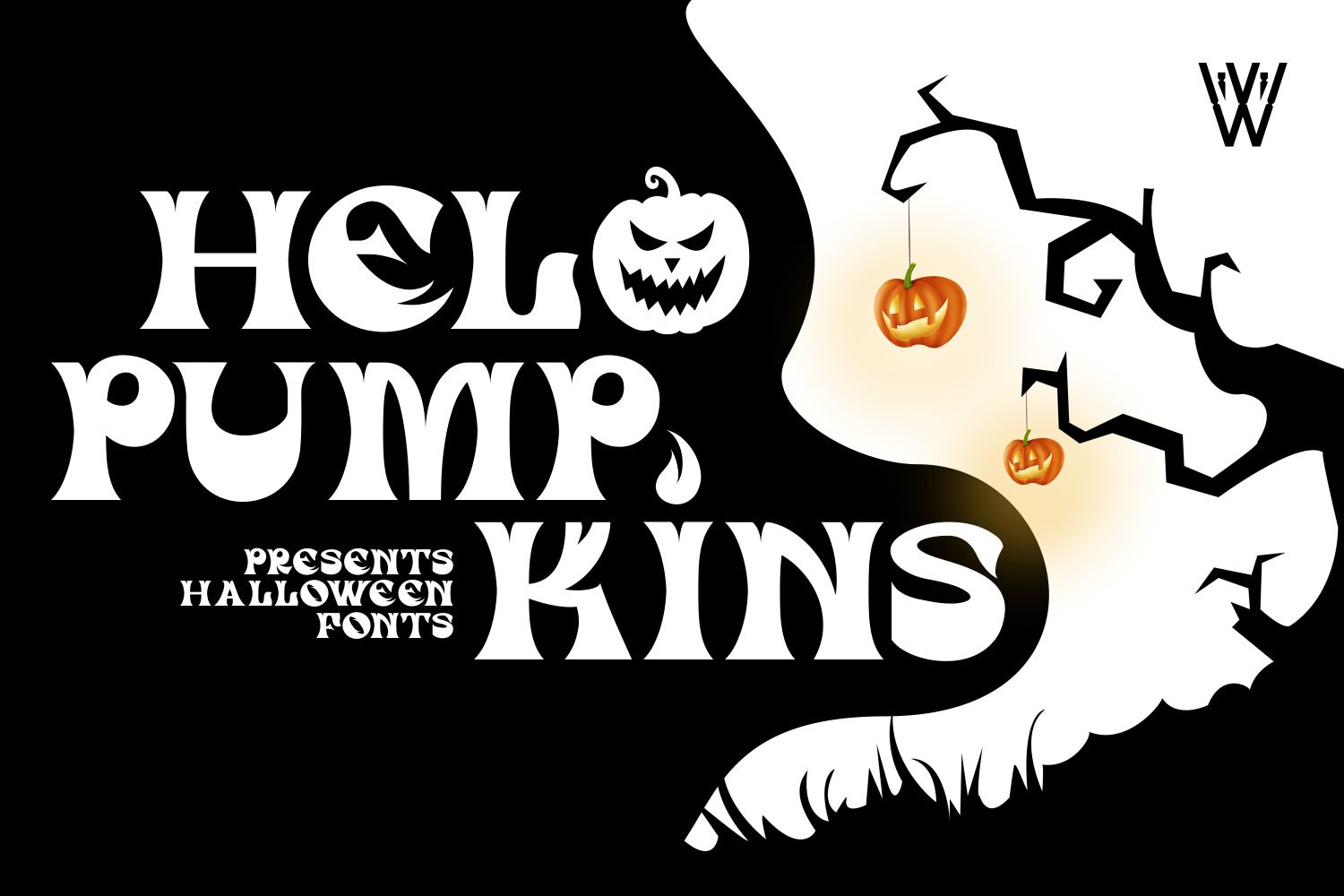
Helo Pumpkins | Halloween font
The Helo Pumpkins Font is a whimsical and spooky typeface that captures the playful spirit of Halloween with its quirky design and eerie charm. Inspired by jack-o’-lanterns and the festivities of the season, this font features fun and quirky letterforms with a touch of spookiness. Whether you’re designing Halloween party invitations, spooky posters, or playful branding materials, the Helo Pumpkins Font adds a delightful and festive touch that enchants the viewer. Its versatility and Halloween-inspired design make it perfect for a wide range of spooky-themed designs, ensuring your creations stand out with a playful and whimsical flair.